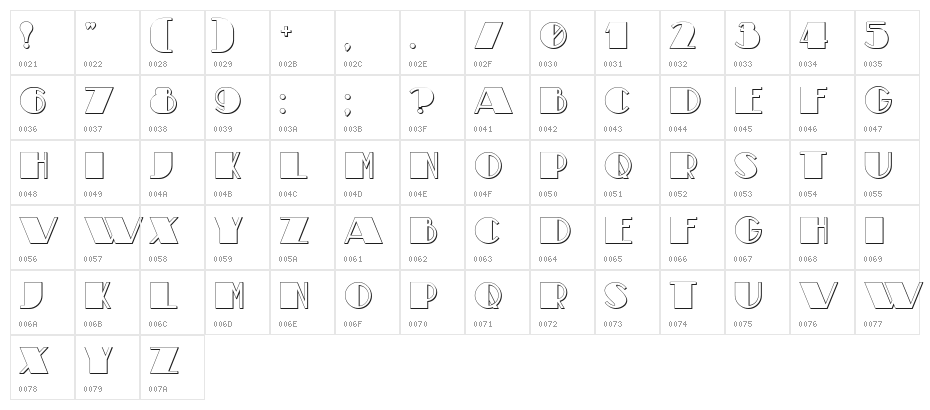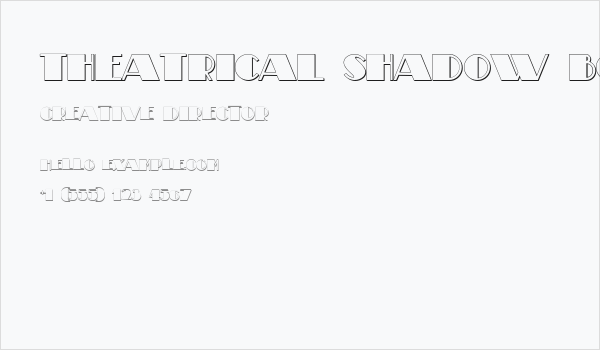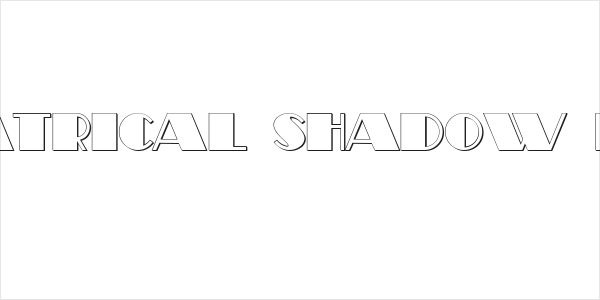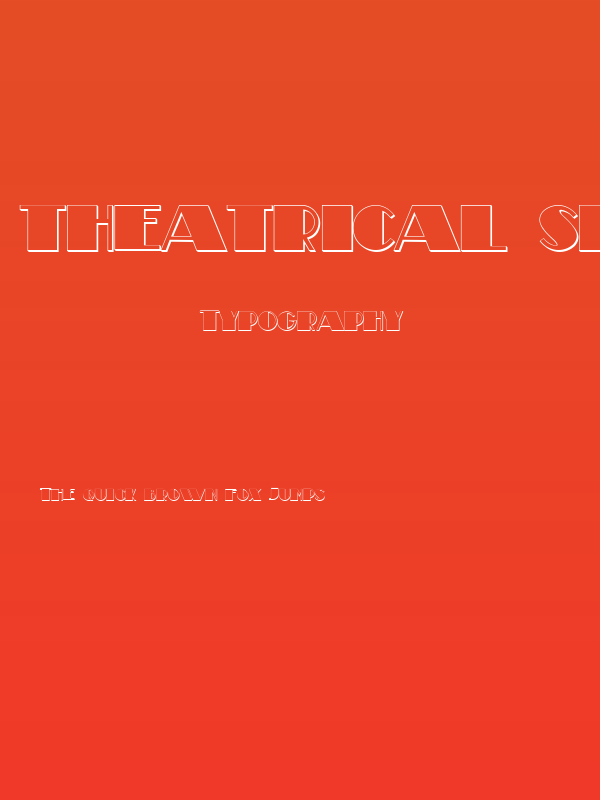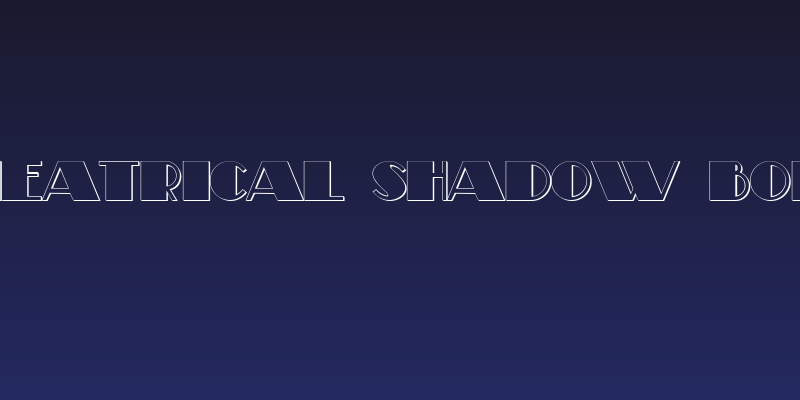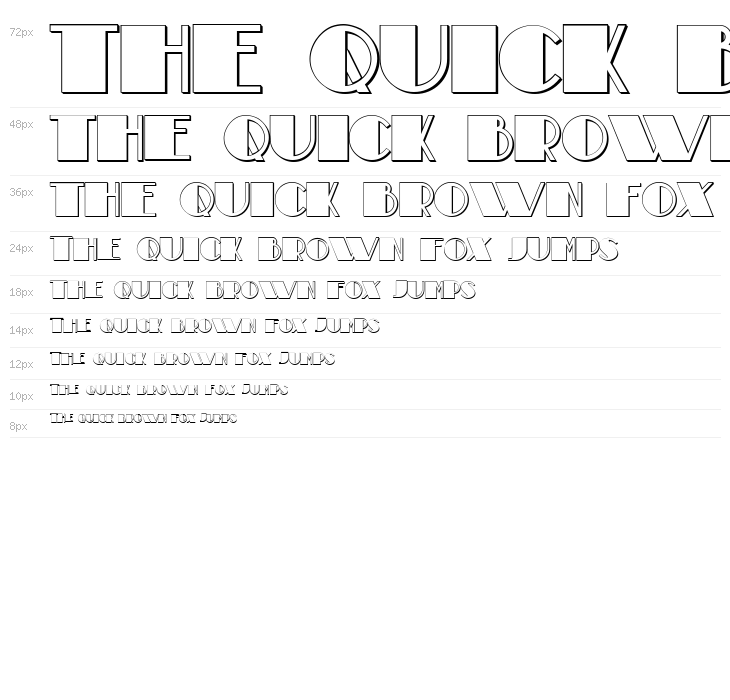
Theatrical Shadow Bold Font
Theatrical Shadow Bold Description
This font features a bold, theatrical style with a distinct shadow effect that gives it a three-dimensional appearance. The letters are uppercase with a geometric structure, characterized by sharp angles and clean lines. The shadow effect adds depth and drama, making it ideal for attention-grabbing designs. The numbers and special characters maintain the same bold and shadowed aesthetic, ensuring consistency across all elements. This font is perfect for projects that require a strong visual impact.
| Proposed Projects | Ideal for posters, signage, theatrical event promotions, and any design needing a dramatic flair. |